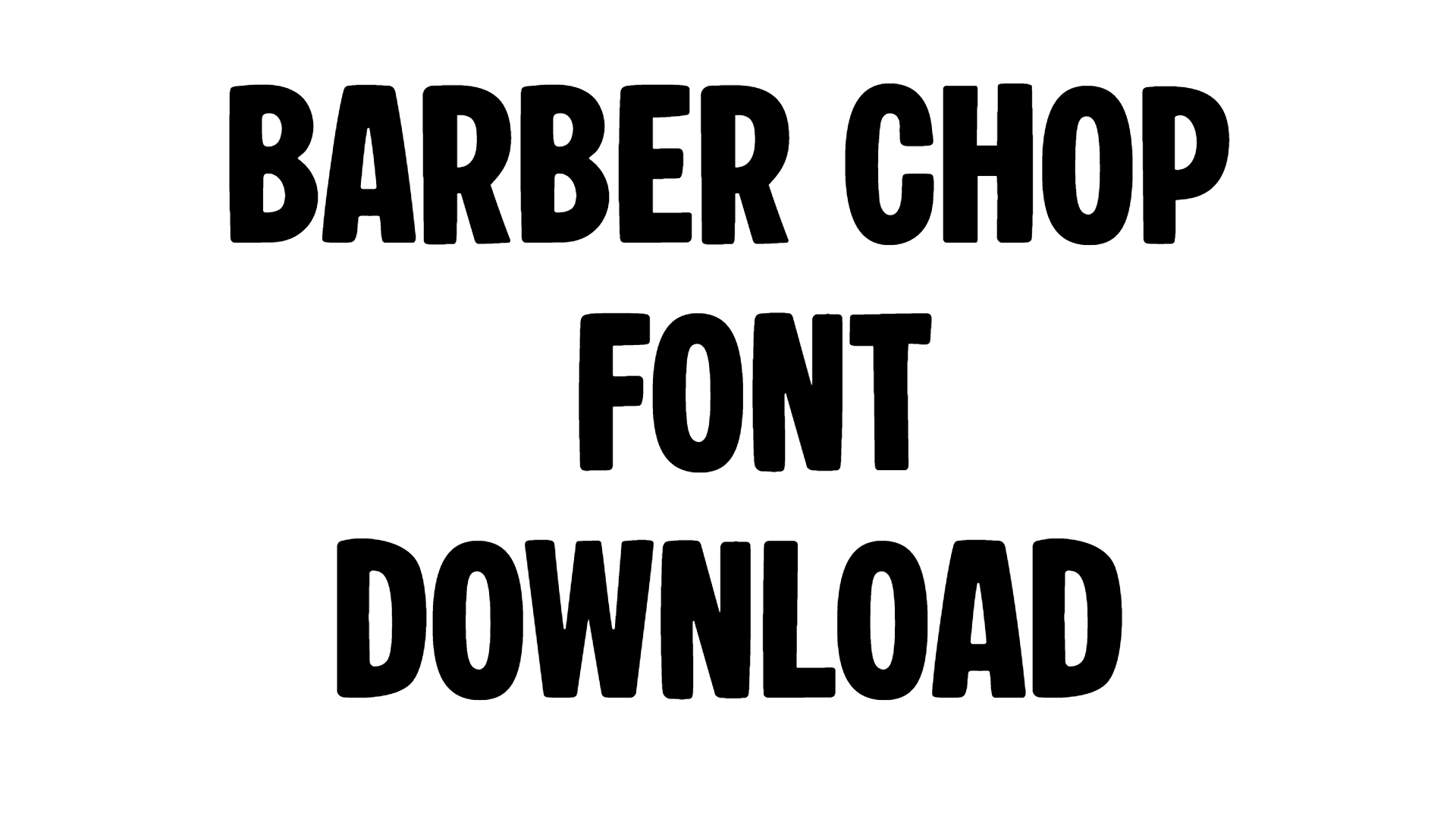
Barber Chop Font
Barber Chop is a comic font made by Eko Bimantara. It has a cheerful, hand-drawn look that makes people smile before they even read the words. You can download it for free and test it with your own words in the preview above.
- Designer: Eko Bimantara
- Category: Comic font
- Glyphs: 124
What You Can Type With Barber Chop
Barber Chop covers the full alphabet in upper and lowercase, plus all ten numbers, so you can set names, dates and prices without switching fonts. Common punctuation such as &, !, ? and @ is included as well. It doesn't include accented letters such as é or ñ, which makes it an English-only font.
Where Barber Chop Works Best
Think of Barber Chop for comic strips, speech bubbles and playful headings. Cartoon fonts are great for short, fun lines. If you place it over a busy photo, add a thick outline or a drop shadow so it stays readable.
Does Barber Chop support accented letters?
No. Barber Chop has no accented letters such as é, ñ or ü, so it's best for English text.